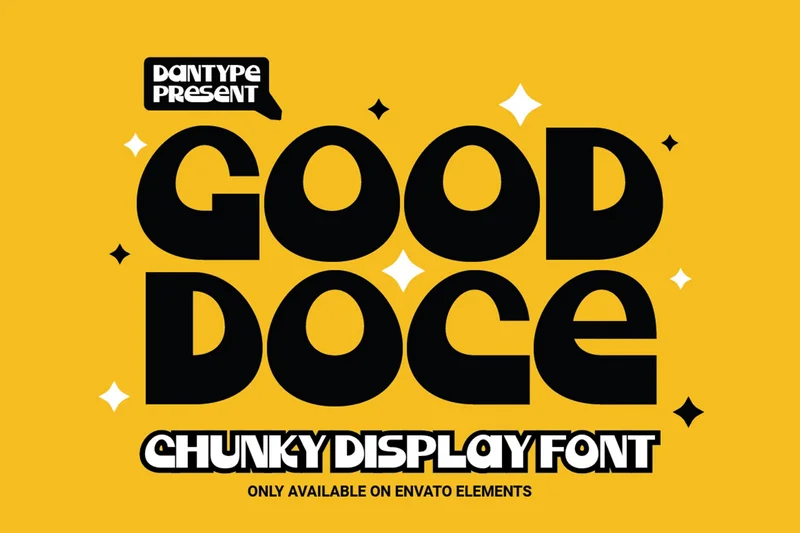
Good Doce – Chunky Display Font
Good Doce is a fun and chubby geometric display font that radiates positivity and sweetness. Its soft curves and bold structure make it ideal for food brands, cafe logos, packaging, and creative posters. The font balances nostalgic retro forms with modern minimalism, giving your visuals a cheerful yet clean aesthetic